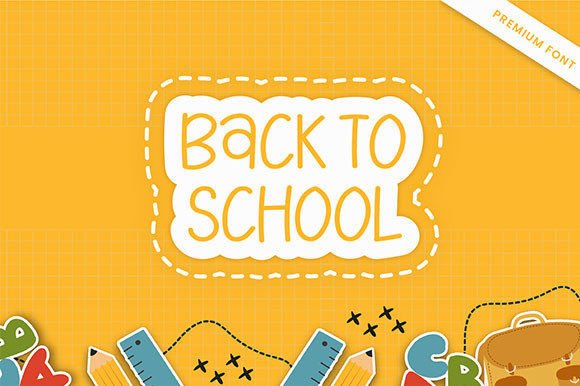
The Ultimate Go-To Font for Creatives: A Deep Dive into Bestchild
I’ll never forget the time I was working on a last-minute greeting card project for a friend’s birthday. I had all the design elements ready, but I was stuck on finding the perfect font. It had to be friendly, playful, and easy to read. That’s when I stumbled upon Bestchild, a fun and friendly handwritten font that instantly became my top pick. In this article, I’ll share my experience with Bestchild, its features, and how to make the most of it in various design platforms.
An Honest Review of Bestchild
Bestchild has quickly become a favorite in my font collection, and here’s why:
• ✨ Friendly and approachable feel: Bestchild has a warm and inviting tone that’s perfect for greeting cards, crafts, and digital designs.
• ✅ Highly legible: The font is clear and easy to read, even in smaller sizes.
• 💫 Versatile: Bestchild works well for various design projects, from presentations to social media graphics.
While Bestchild is an excellent font, it’s not without its quirks:
• 🤔 Limited formal or serif options: Bestchild is a strictly handwritten font, which might not be suitable for more formal designs.
• ⚠️ Occasional kerning issues: As with any font, you might encounter some kerning issues, especially with certain letter combinations.
The Story Behind Bestchild
Bestchild was designed with the intention of creating a friendly, approachable font that’s perfect for everyday designs. The designer wanted to create a font that would make readers feel like they’re reading a handwritten letter from a friend. With its warm and inviting tone, Bestchild has become a popular choice among designers and crafters.
What type of designs is Bestchild best suited for? Bestchild is perfect for greeting cards, crafts, digital designs, presentations, and social media graphics.
Does Bestchild support OpenType features? Yes, Bestchild supports OpenType features, including Stylistic Alternates, Glyphs, and Stylistic Sets.
Bestchild is a fun and friendly font that’s perfect for adding a personal touch to your designs. With its warm and inviting tone, it’s sure to become your go-to font for various projects. Experiment with its OpenType features, and don’t be afraid to get creative!